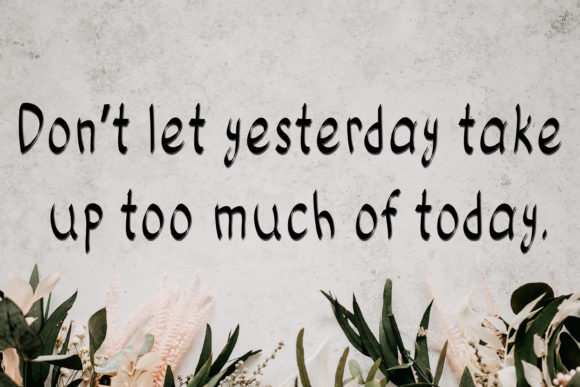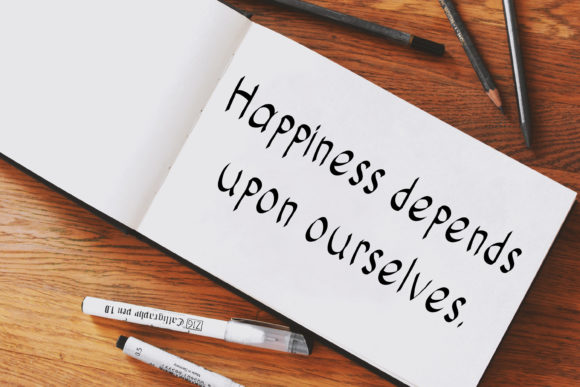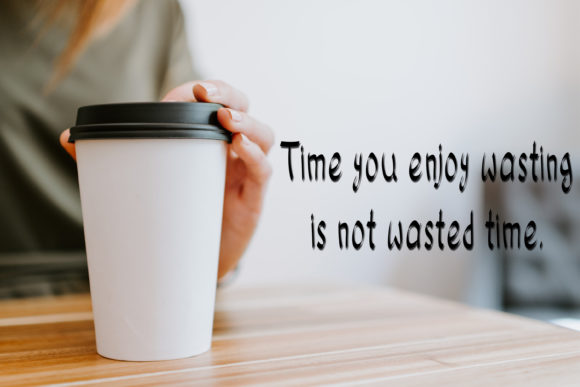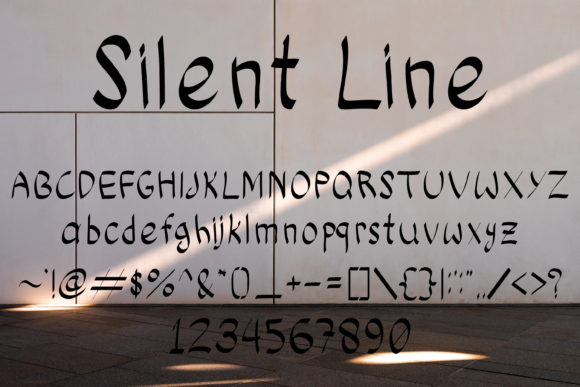
Silent Line Font
About Silent Line Font
Silent Line is an adaptable and friendly handwritten font. Its natural and unique style makes it incredibly fitting to a large pool of designs. The only limit is your imagination!